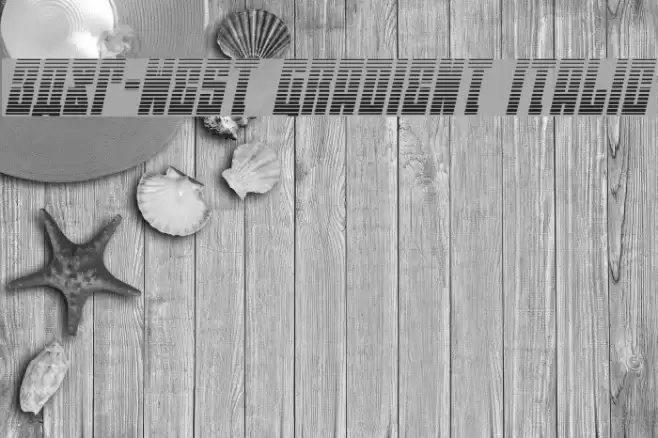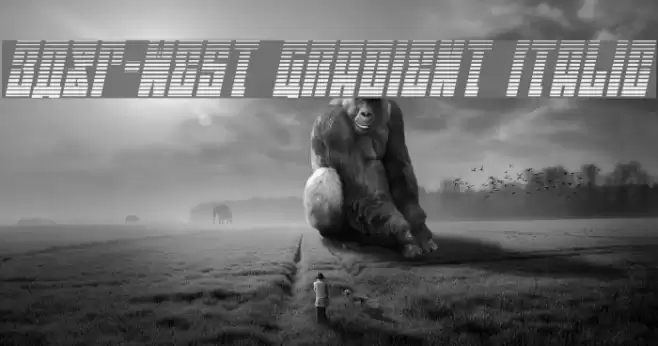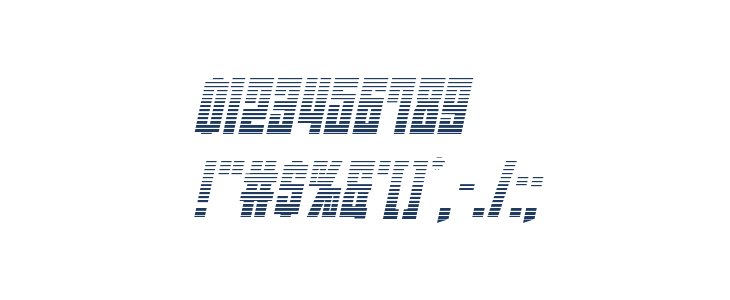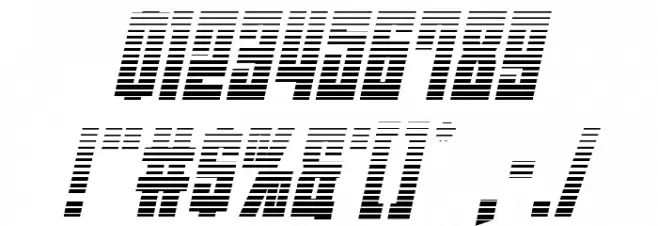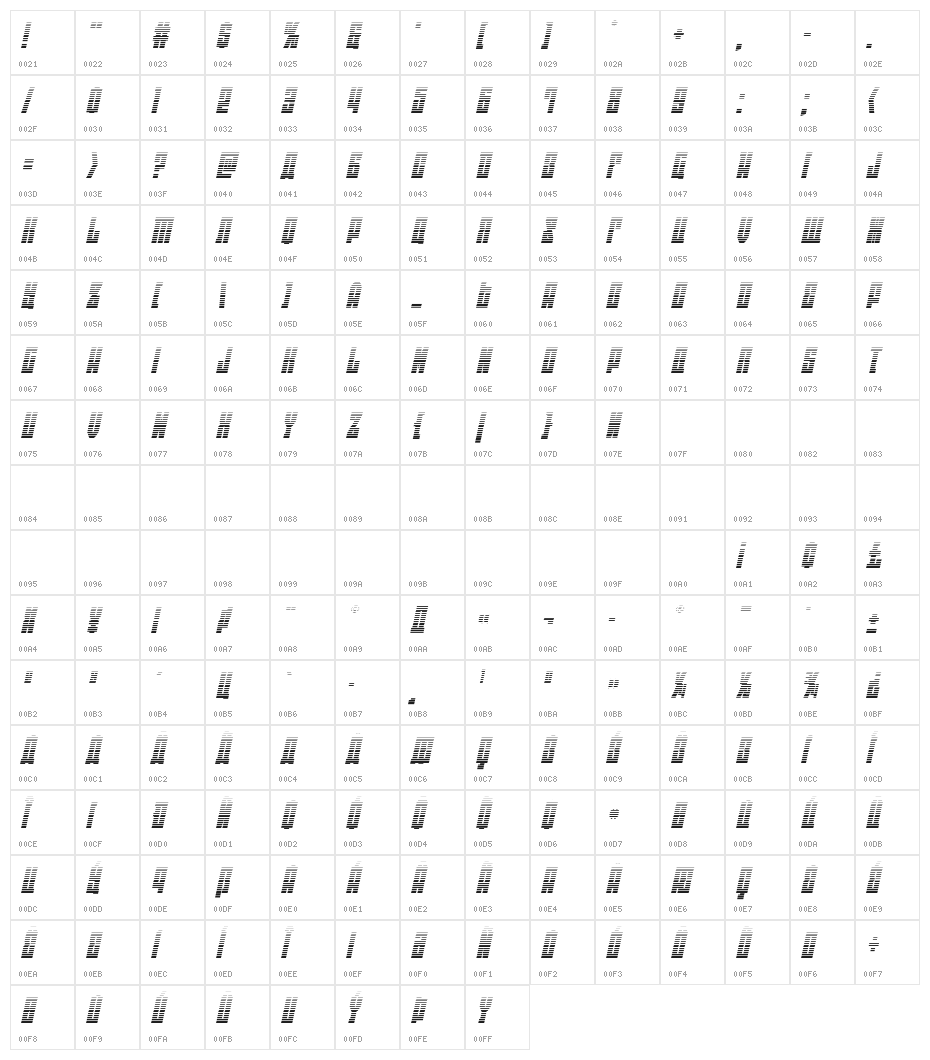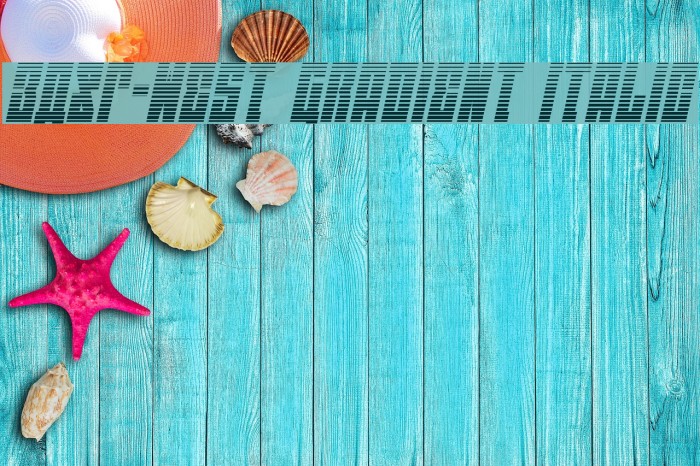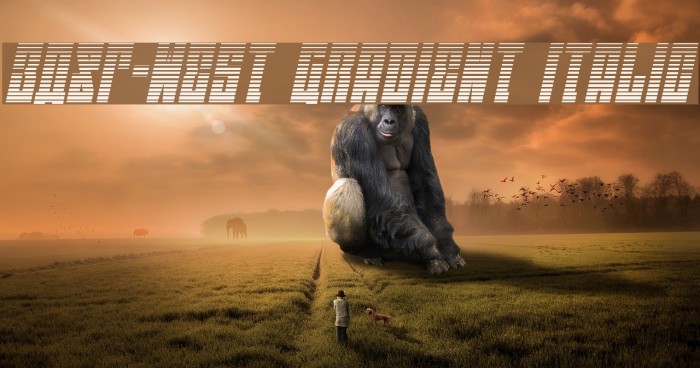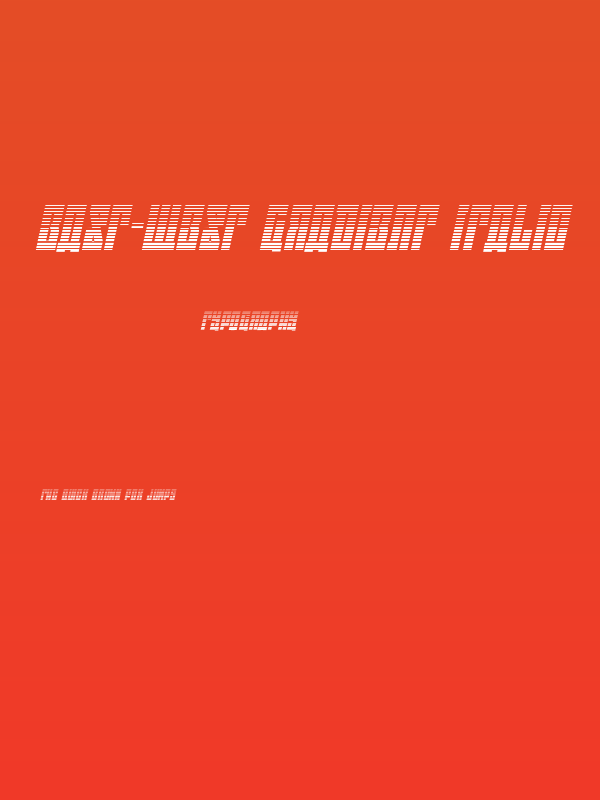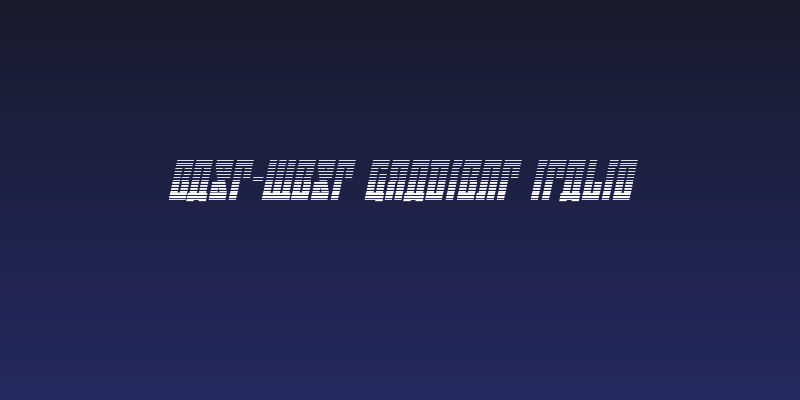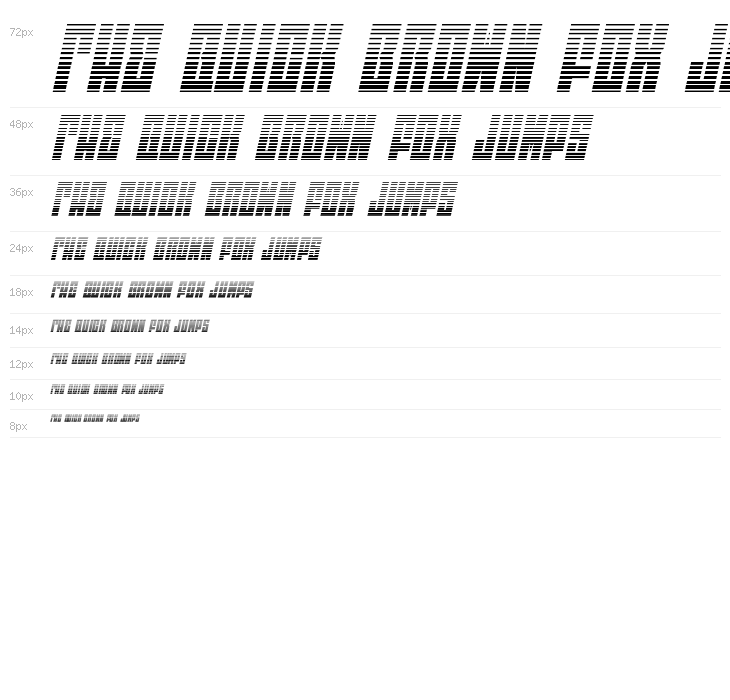
EAST-west Gradient Italic Font
EAST-west Gradient Italic Description
This font features a bold, italicized style with a unique gradient effect that gives it a dynamic, modern appearance. The characters are constructed with horizontal lines that create a sense of movement and depth. The uppercase and lowercase letters maintain a consistent design, emphasizing the gradient effect. The numbers and special characters follow the same stylistic approach, ensuring uniformity across all elements. This font's distinct look makes it stand out, offering a futuristic and edgy vibe suitable for various creative applications.
A bold, italicized font with a gradient effect, offering a modern and dynamic style from Uncategorized fonts.
- Proposed Projects: Ideal for futuristic designs, tech-related branding, video game titles, and modern advertising campaigns.